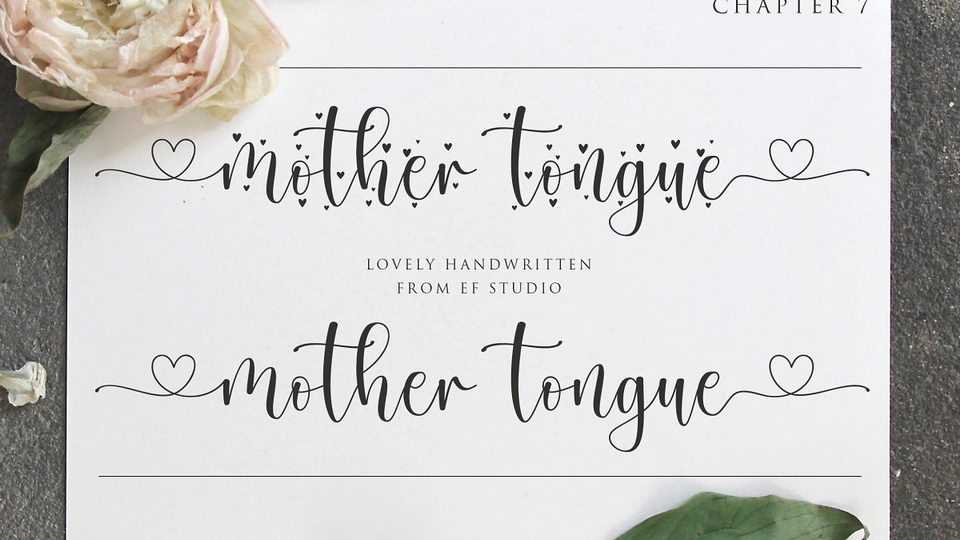
Download Mother Tongue font, a beautiful handwritten script with romantic decorative elements and swashes. Mother Tongue font is suitable for invitations, wedding designs, social media posts, advertisements, labels, logos, special events and more.
Designer: Ef Studio